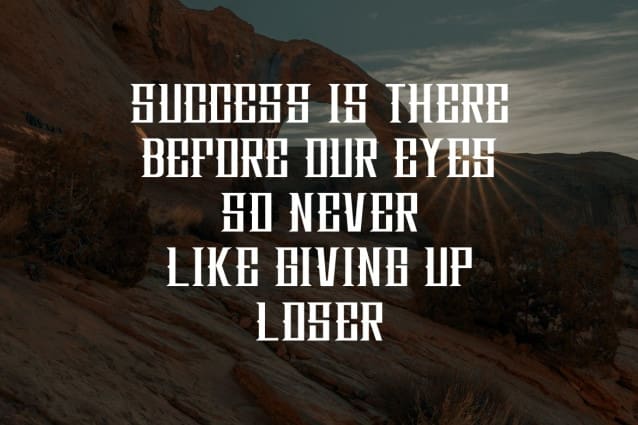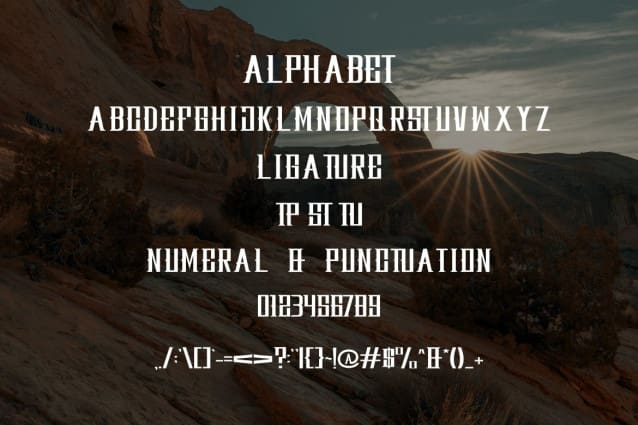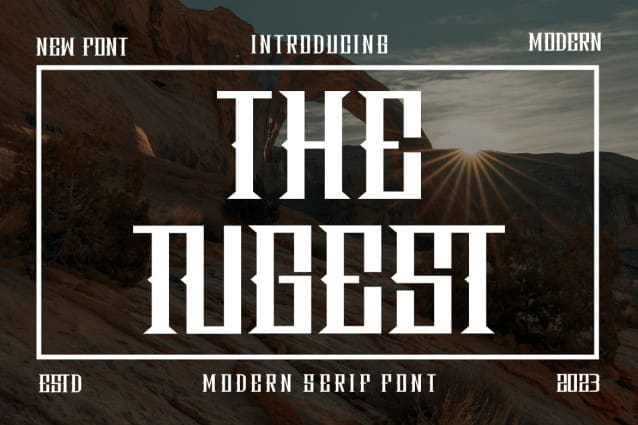
The Tugest Font
The Tugest Font is a modern and simple font, best used as a display for headings, logos, branding, magazines, product packaging and invitations. TheTugest comes with clean lines and smooth curves give any project an extra touch of class.